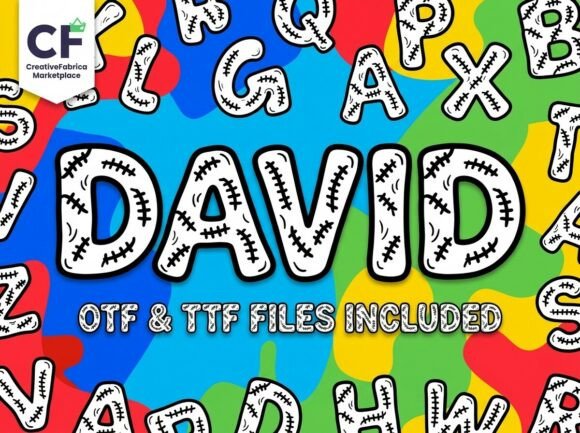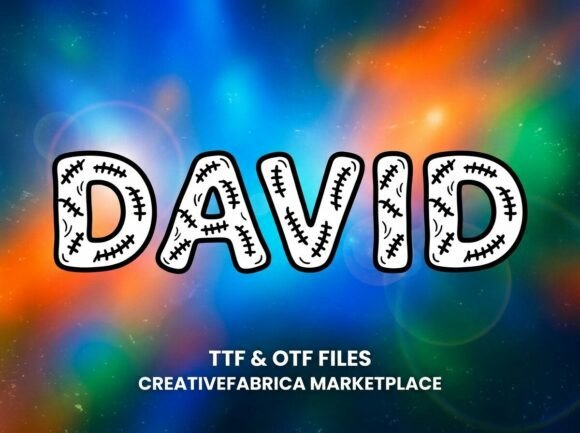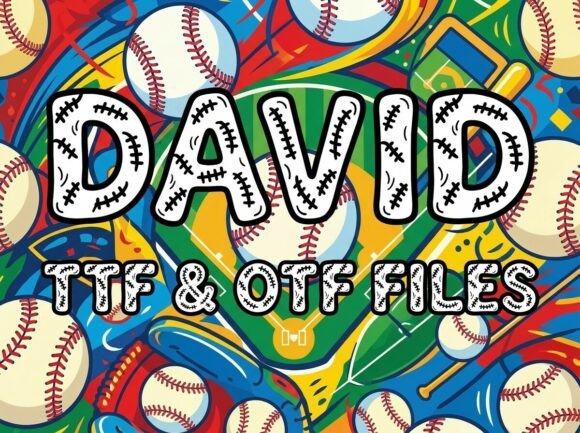
Introducing David Font: A Stunning Decorative Display Font
Are you tired of using the same old fonts for your creative projects? Look no further than David Font, a unique and artistic display font that’s sure to turn heads. This font is designed to be the center of attention, featuring bold and eye-catching elements that will elevate your designs to the next level.
A Font that Breaks Away from the Ordinary
David Font is perfect for creators who want to add a touch of personality to their work. With its strong visual personality and unique artistic elements, this font is sure to make your designs stand out from the crowd. Whether you’re working on a bold headline, artistic logo, or creative packaging, David Font is the perfect choice.
Versatile and Professional
One of the best things about David Font is its versatility. This font is suitable for a wide range of design projects, from high-impact headlines to artistic logos and creative packaging. And with its professional and polished finish, you can be sure that your designs will look great in any context.
Before you purchase, it’s essential to note that David Font is an ALL-CAPS (Uppercase Only) display typeface. This means that it does not include lowercase letters. It’s specifically designed for high-impact headlines, logos, and decorative initials where every letter is a work of art.
Why Choose David Font?
So why choose David Font over other display fonts on the market? Here are just a few reasons:
- Unique and Artistic: David Font features unique artistic elements that will add a touch of personality to your designs.
- Versatile: This font is suitable for a wide range of design projects, from high-impact headlines to artistic logos and creative packaging.
- Professional and Polished: David Font has a professional and polished finish that will elevate your designs to the next level.
- Use it for Headlines: David Font is perfect for high-impact headlines that need to grab attention.
- Create Artistic Logos: With its unique artistic elements, David Font is ideal for creating artistic logos that will stand out.
- Add a Touch of Personality: Use David Font to add a touch of personality to your designs and make them more engaging.
In conclusion, David Font is a stunning decorative display font that’s perfect for creators who want to break away from the ordinary. With its unique artistic elements, strong visual personality, and versatility, this font is sure to elevate your designs to the next level. So why wait? Purchase David Font today and start creating stunning designs that will turn heads.